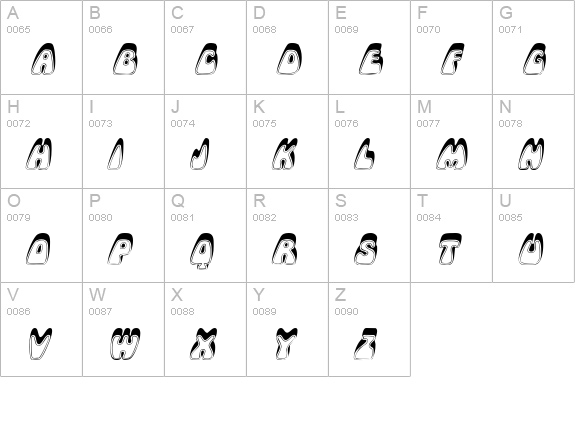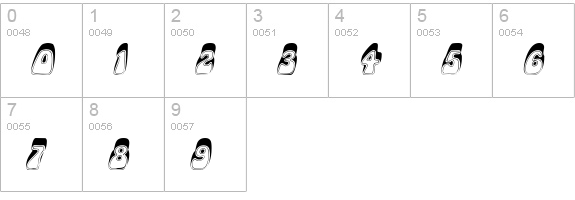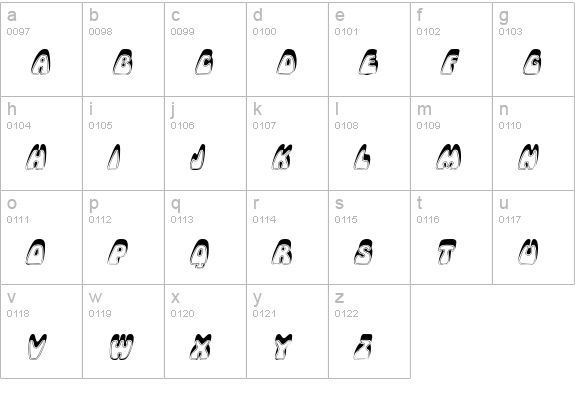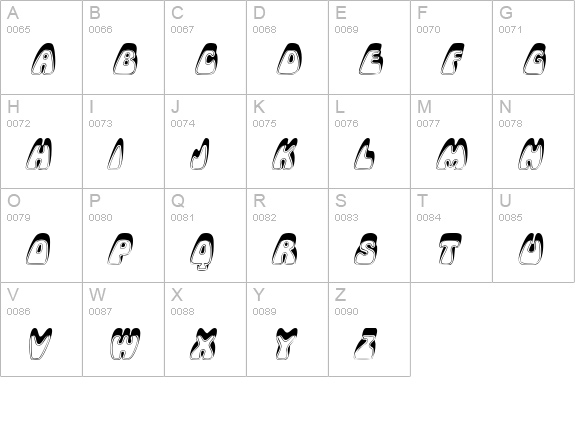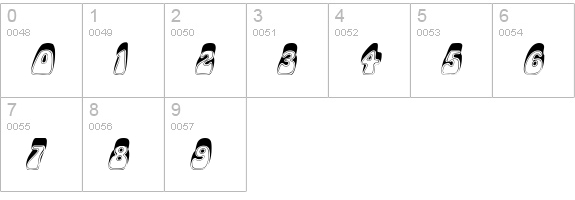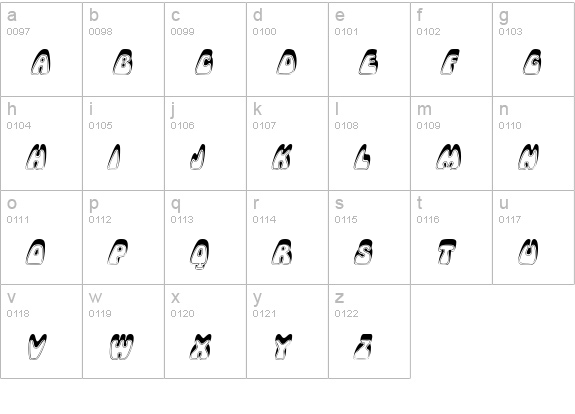
RobleRoundedSCapsSSK Italic is a distinctive, italic variant in the RobleRoundedSCapsSSK typeface family \xE2\x80\x94 well suited to design and typography projects.
RobleRoundedSCapsSSK Italic is a stylish and modern font that adds a touch of sophistication to any design. The italicized style of this font brings a sense of elegance and flair, making it perfect for projects that require a refined and polished look. With its rounded edges and distinctive caps, RobleRoundedSCapsSSK Italic stands out while maintaining a sense of versatility. Best of all, this font is available for free download at FontsMarket.com, making it easily accessible for designers and creatives looking to enhance their projects with a touch of class. Whether you're working on a branding project, website design, or any other creative endeavor, RobleRoundedSCapsSSK Italic is sure to make a statement and elevate your work to the next level. Download it today and see how it can transform your designs!